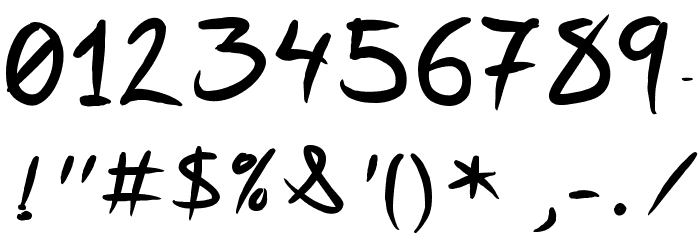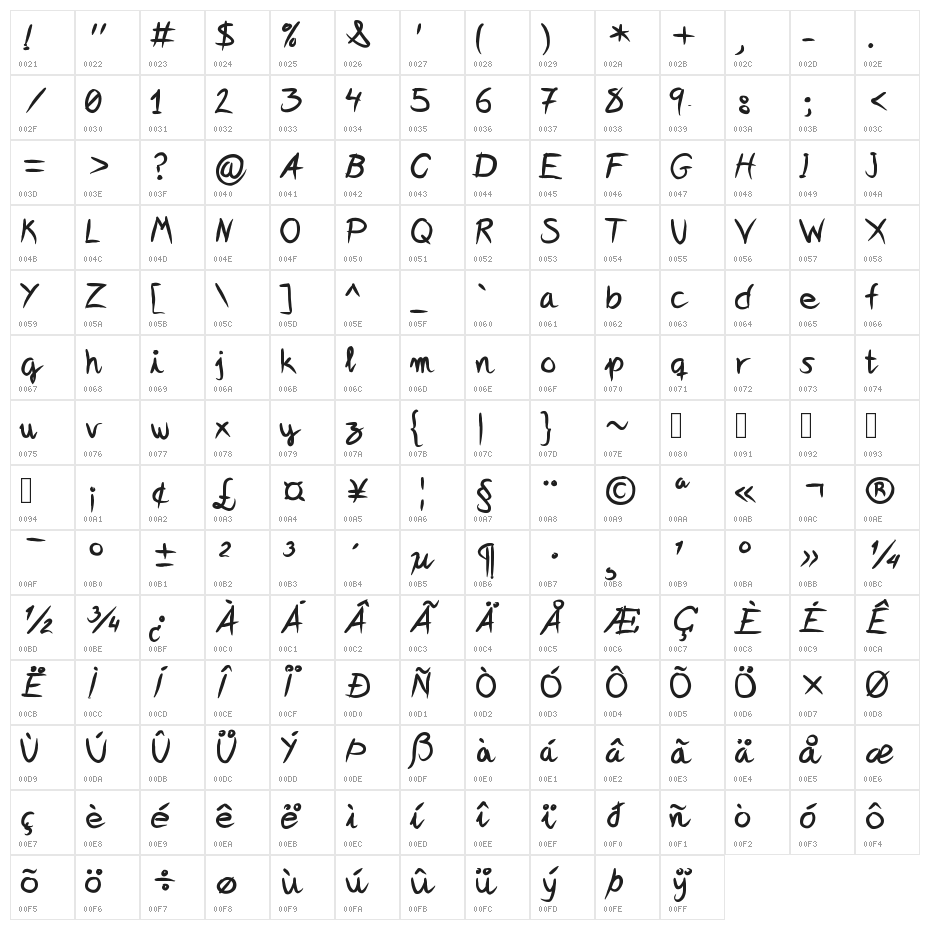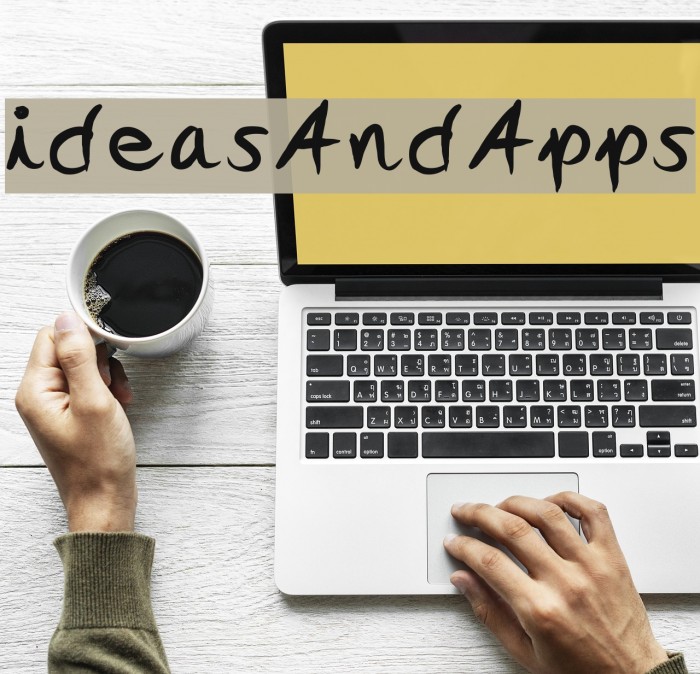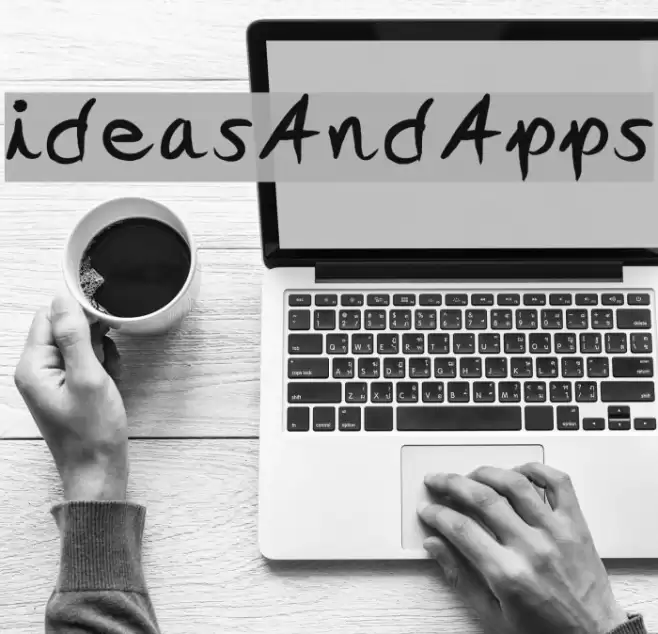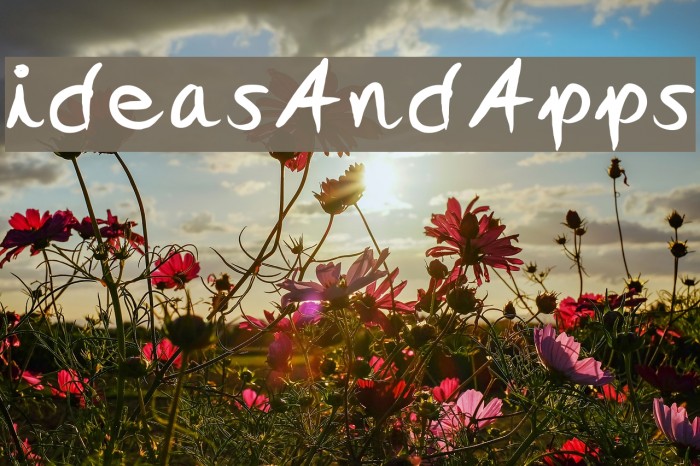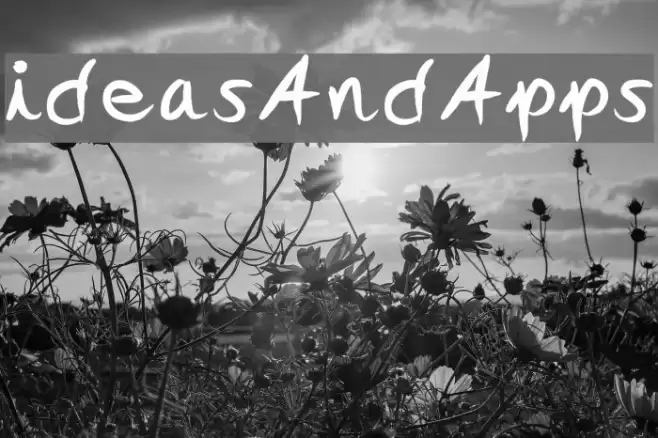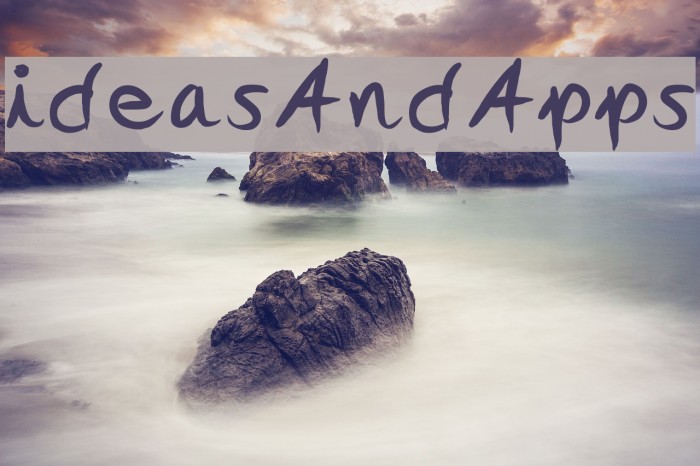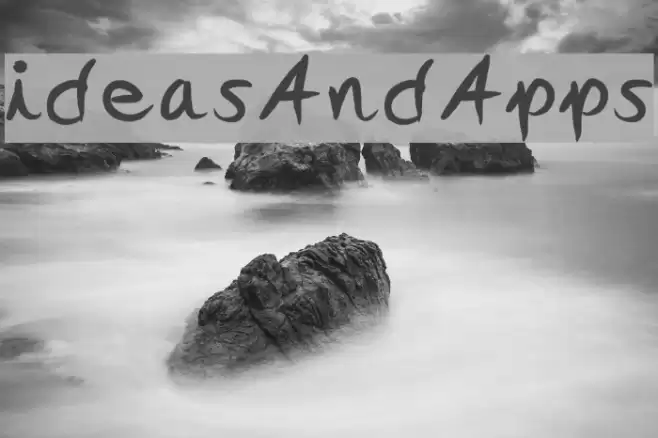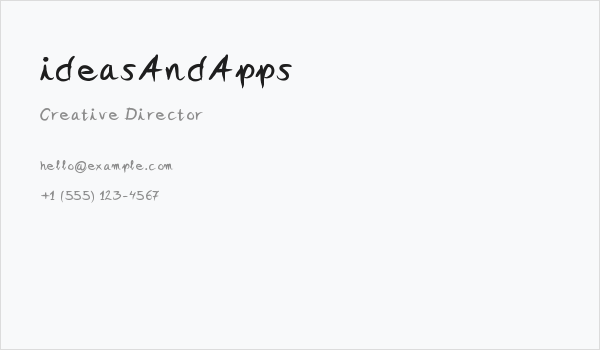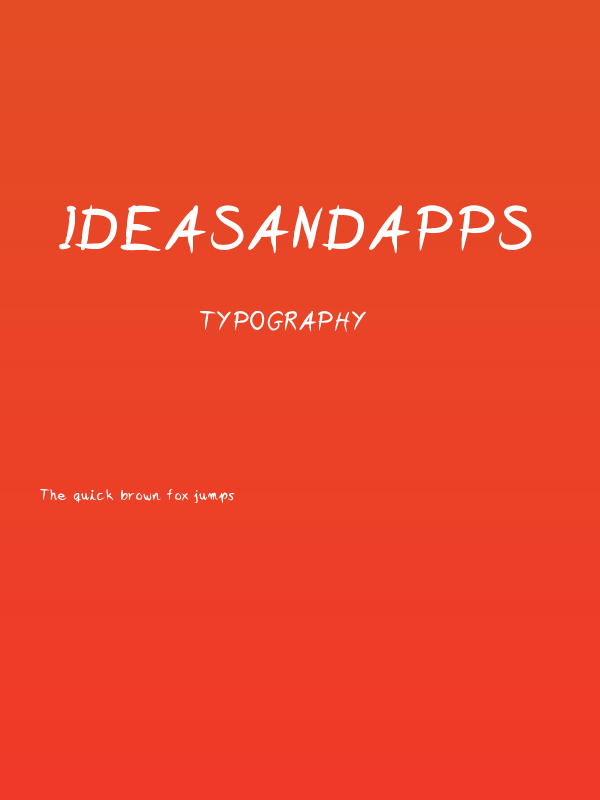
ideasAndApps Font
ideasAndApps Description
This font features a lively and dynamic handwritten style, characterized by its fluid and slightly irregular strokes that mimic the natural flow of handwriting. The uppercase letters are bold and expressive, with a playful tilt that adds a sense of movement. The lowercase letters maintain a consistent style, with rounded edges and varying stroke widths that enhance its casual and approachable appearance. Numbers and special characters are crafted with the same attention to detail, ensuring a cohesive look across all glyphs. This font's unique personality makes it ideal for projects that require a personal touch or a creative flair.
| Overall Style | Casual, Creative |
| Proposed Projects | Ideal for greeting cards, invitations, personal branding, and creative projects that require a personal touch. |